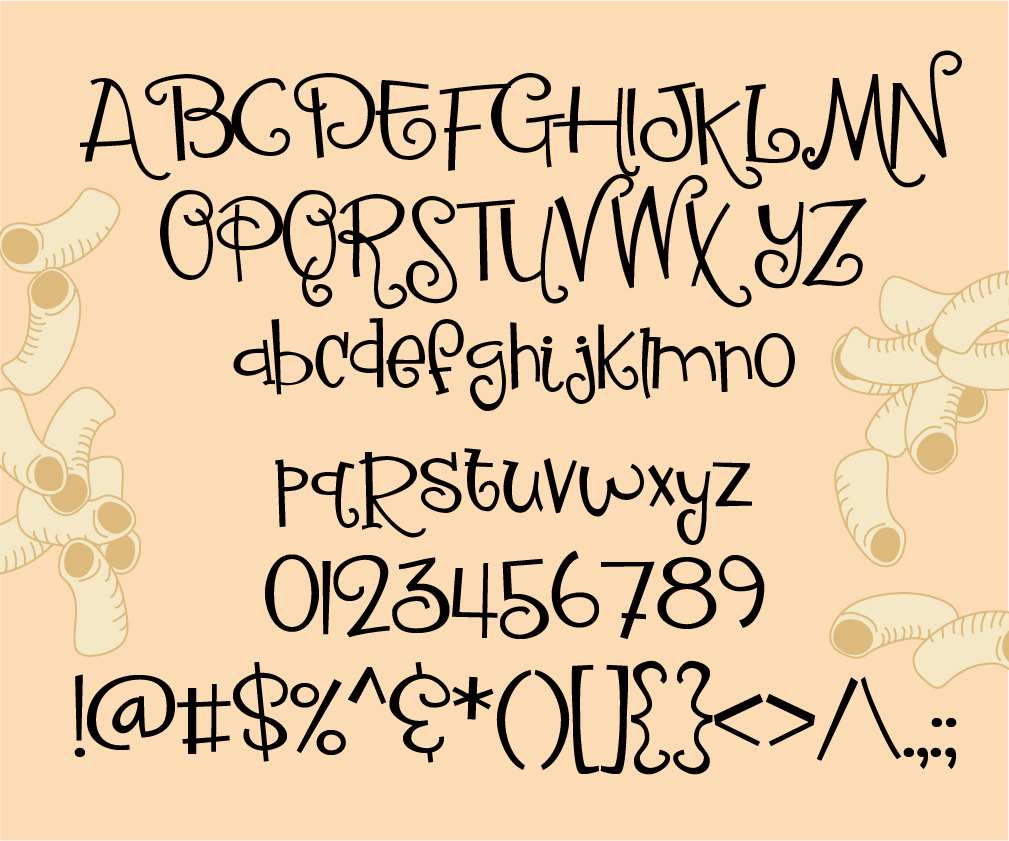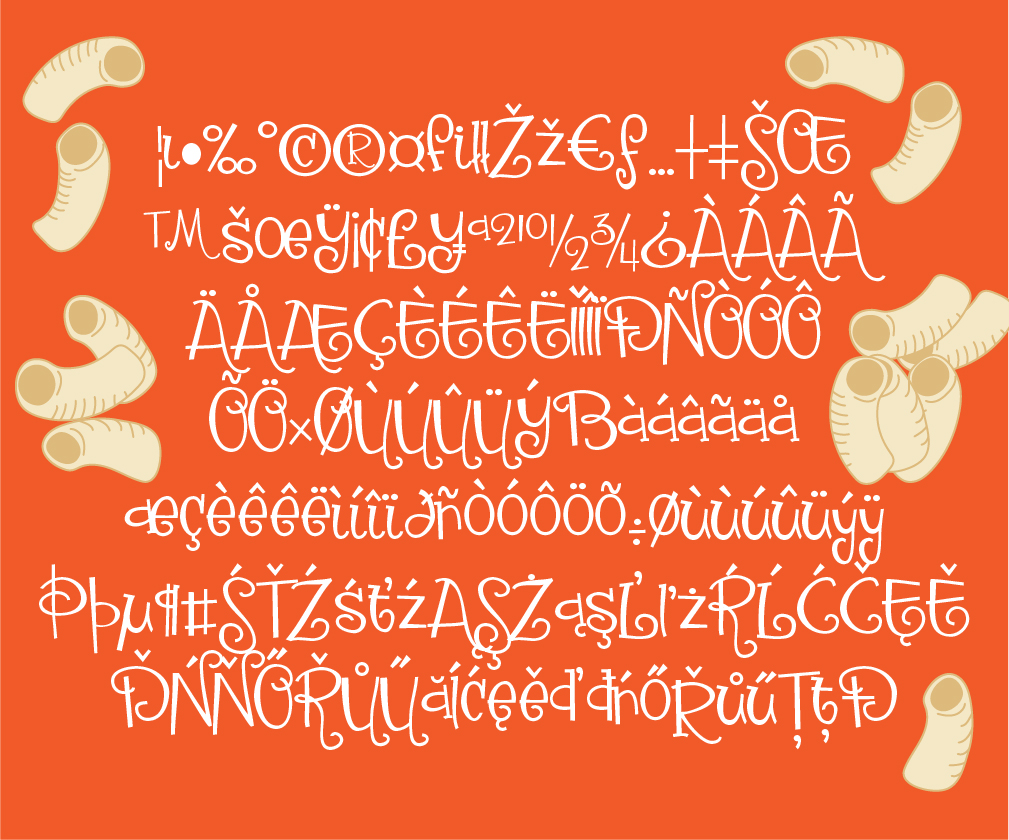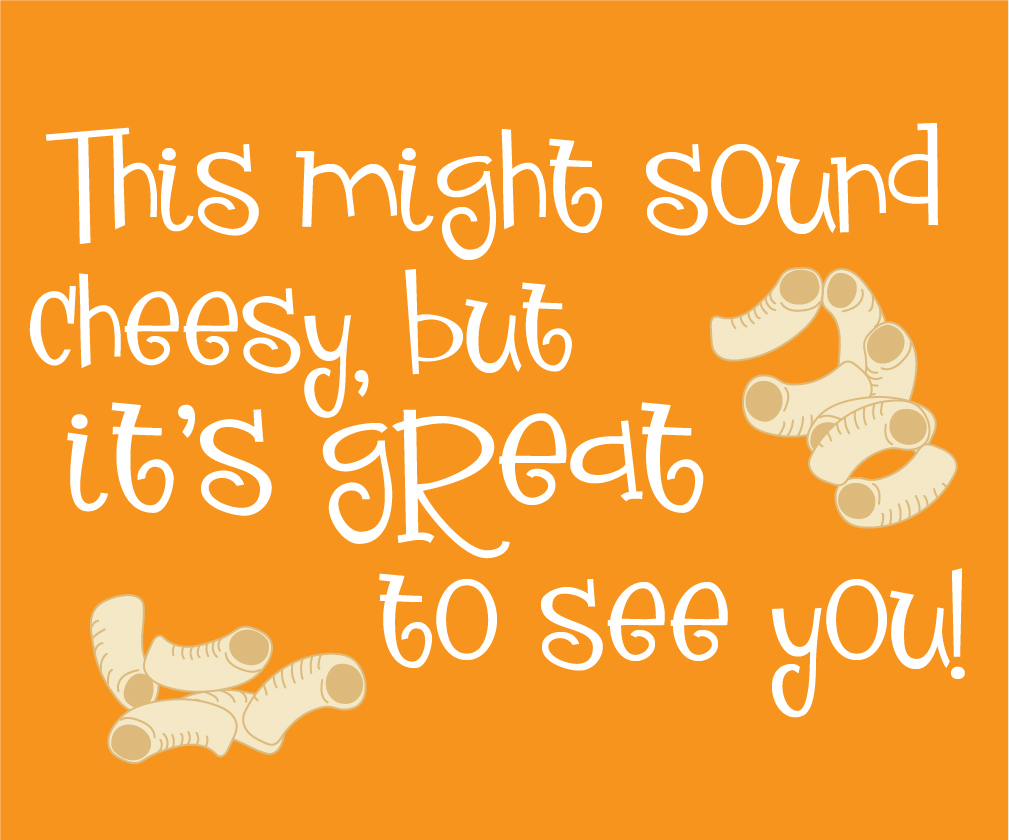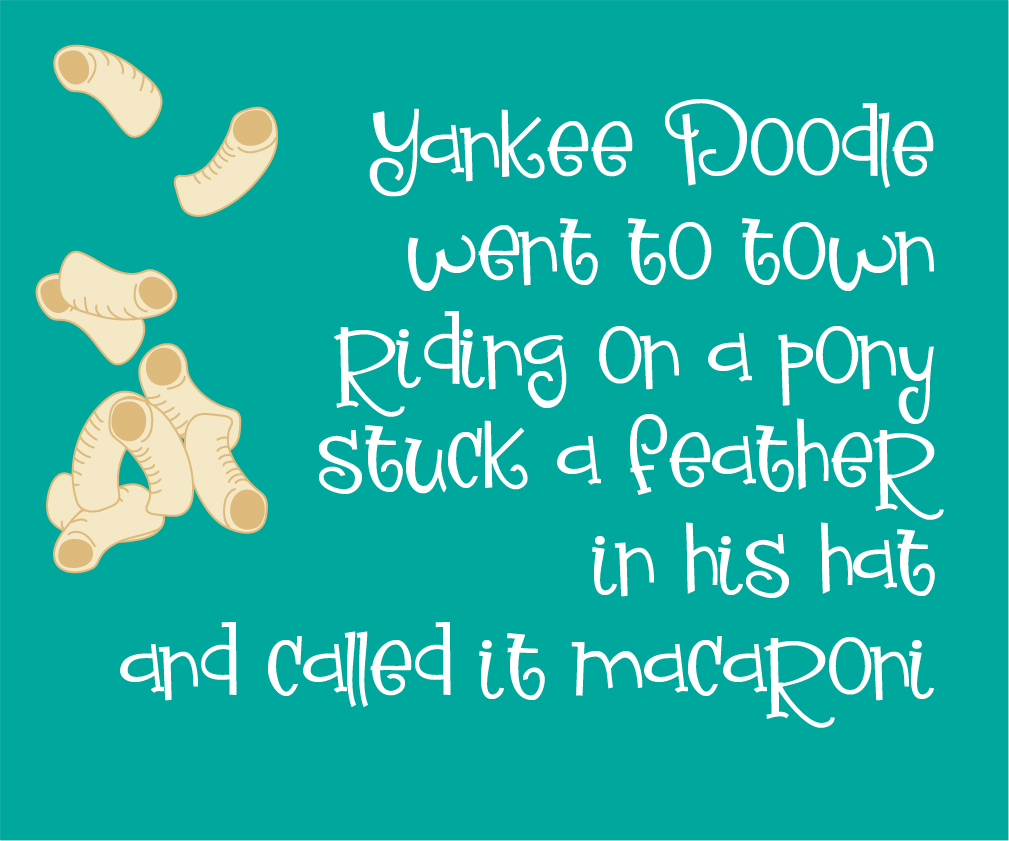
Introduction to Macaroni Salad Font
Have you ever found yourself stuck in a creative rut, yearning for that perfect font to bring your project to life? For me, it was a lazy Sunday afternoon, brainstorming ideas for a children’s book. I needed something playful, something that would capture the whimsy of childhood. And then, I stumbled upon it – the Macaroni Salad Font. Its curly letters and delightfully quirky lowercase “R” had me hooked from the start.
As a valuable design resource, the Macaroni Salad Font offers a level of customization that’s hard to resist. With a transparent background, it’s perfect for creative projects where you want to let your design shine. And the best part? It’s a high-quality, free download that’s sure to elevate your design game.
Whether you’re working on a children’s book, a party invitation, or any other creative project, the Macaroni Salad Font is a must-have. Its unique charm and character will add a touch of personality to your design, making it truly unforgettable.
Key Features of Macaroni Salad Font
- Unique and playful design suitable for creative projects, such as food blogs, recipe websites, and social media content.
- High-quality, free download font with transparent background, making it easy to use in various design resources.
- Single-layer font with a resolution of 300 DPI, ideal for digital use in web design, social media, and print materials.
- Macaroni Salad Font is a creative design resource perfect for adding a whimsical touch to your projects, including logos, graphics, and typography.
Honest Review: Macaroni Salad Font
I recently stumbled upon the Macaroni Salad Font, a free download that caught my attention due to its quirky, hand-drawn design. As a designer, I appreciate the effort put into creating a unique, high-quality resource for creative projects.
What works well about the Macaroni Salad Font is its versatility. It’s perfect for adding a playful touch to food-related designs, children’s projects, or even editorial content. The font’s irregularities and loose connections between letters give it a fun, handwritten feel that’s hard to replicate with more traditional fonts. ✨
However, I do have a few reservations about the Macaroni Salad Font. One limitation is its lack of a transparent background option, which can make it tricky to use in certain design situations. Additionally, the font’s design might not be suitable for all types of projects, particularly those requiring a more formal or professional tone. ⚠️
Overall, I’d say the Macaroni Salad Font is a great addition to any designer’s toolkit, especially for those working on creative projects that require a bit of whimsy. While it may have some limitations, its unique design and high-quality construction make it a valuable resource for designers seeking to add a personal touch to their work.
Here are some key features of the Macaroni Salad Font:
- High-quality, hand-drawn design
- Perfect for creative projects, food-related designs, and children’s content
- May not be suitable for formal or professional projects
Tips for Getting the Most Out of Macaroni Salad Font
To get the most out of the Macaroni Salad Font, use it in combination with other playful design elements, such as bright colors and whimsical graphics. You can also experiment with different font sizes and styles to add visual interest to your design.